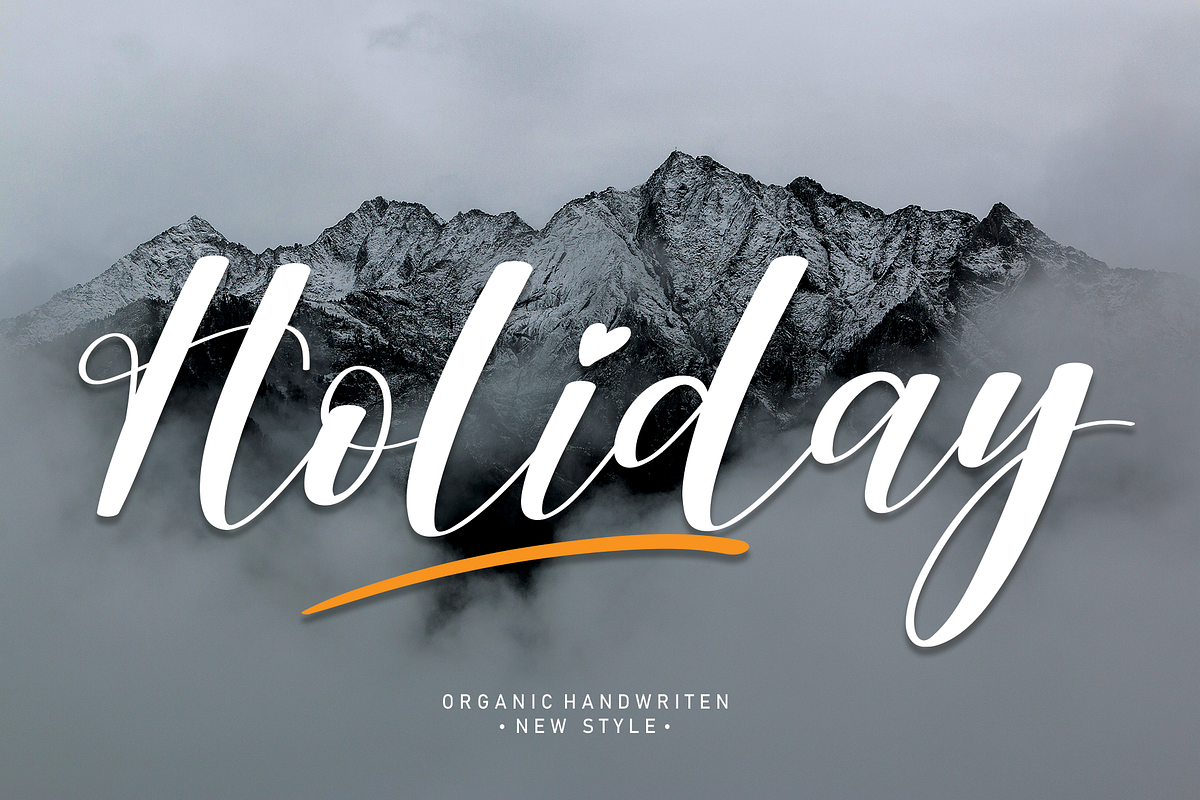
Holiday | Script font Free Download
Holiday Script Font Free Download
Add a festive and elegant touch to your designs with Holiday Script Font Free Download. This beautiful script font features smooth, flowing lines that evoke warmth and celebration, making it perfect for holiday cards, invitations, branding, and seasonal promotions. Its handwritten style brings a personal and charming feel to any project.
Elevate your holiday-themed designs with the graceful and festive Holiday Script Font Free Download.